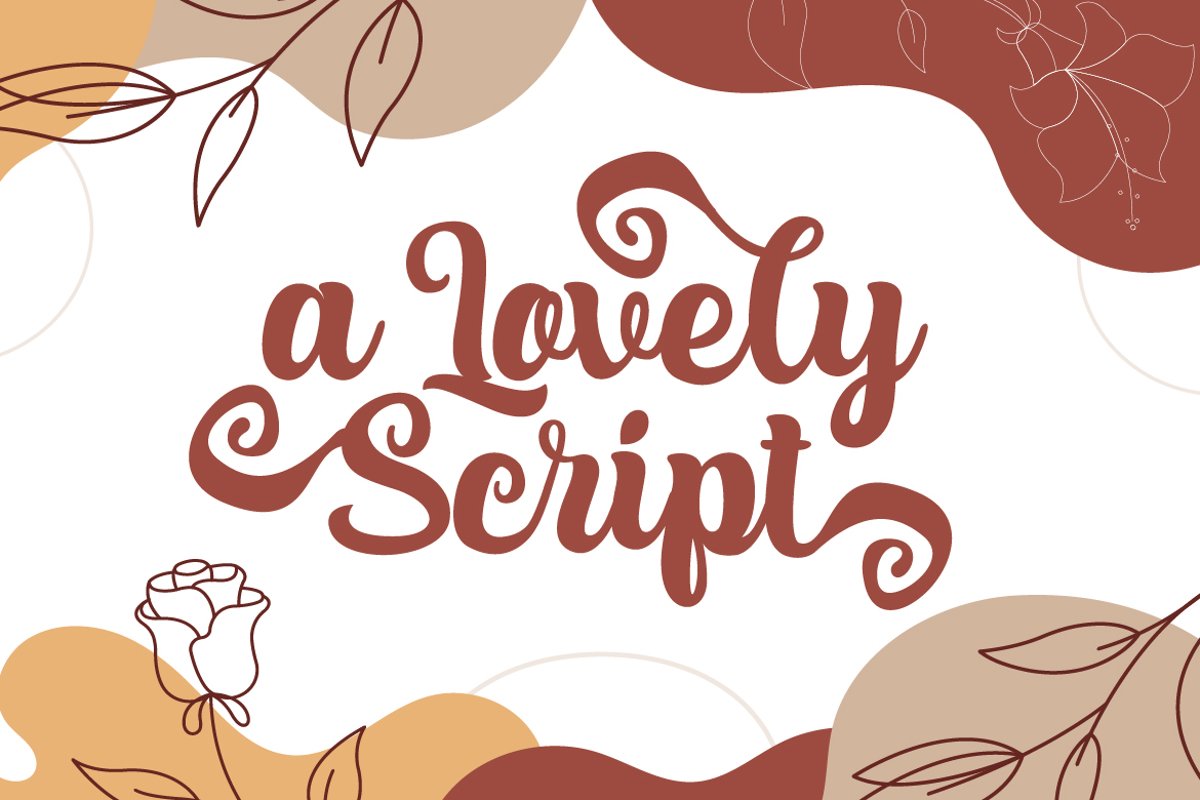
Kaila Script
Debut Studio presents the latest font Kaila Script This font is perfect for design purposes such as lovely design for wedding, crafting, posters, business cards, and others.
* Standard ligatures and alternate stylistic